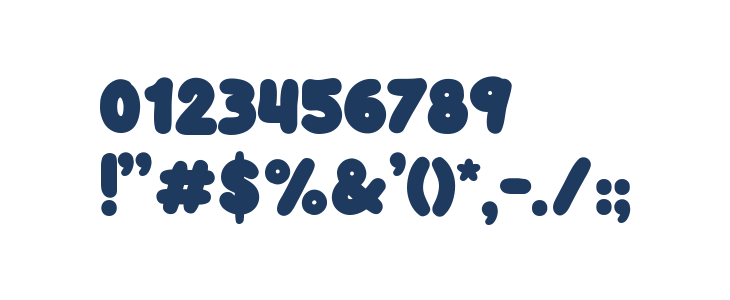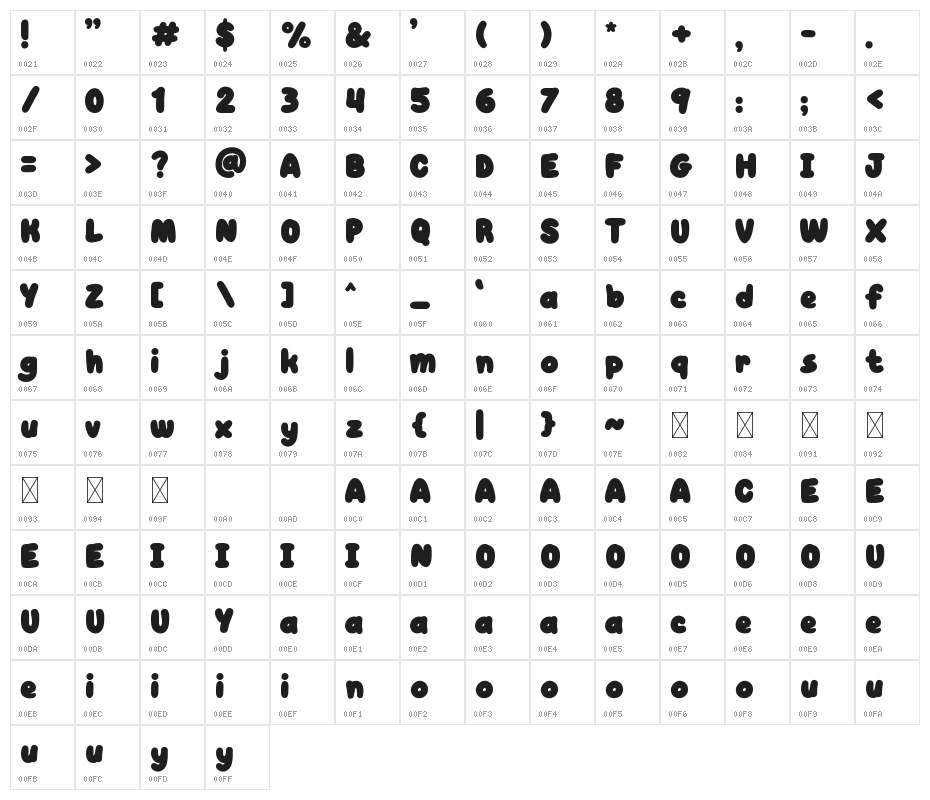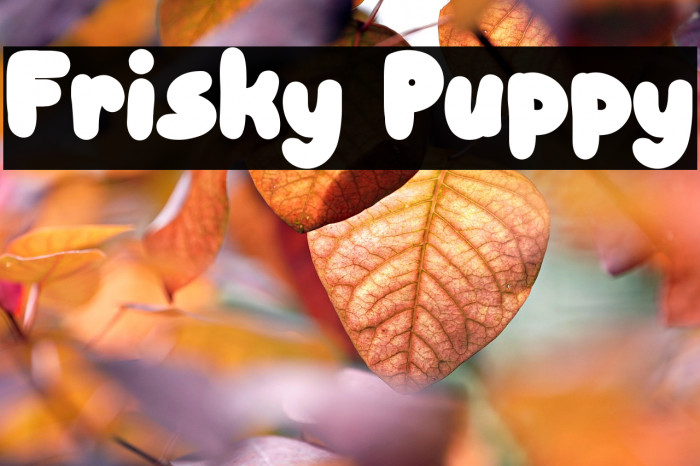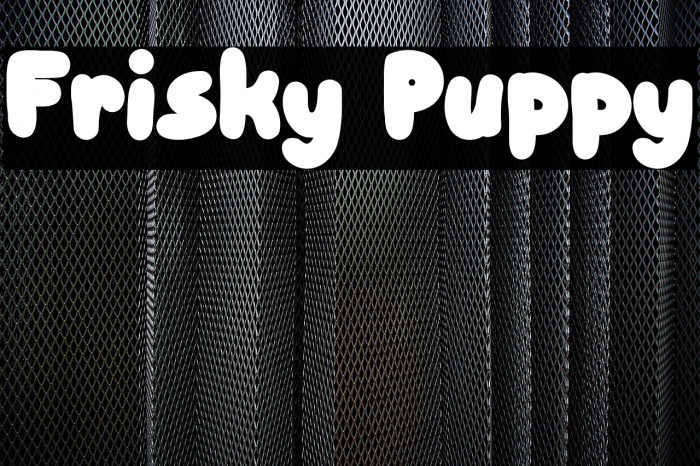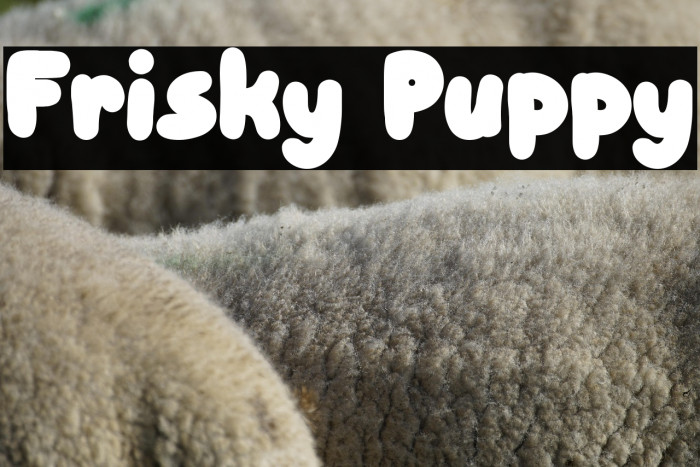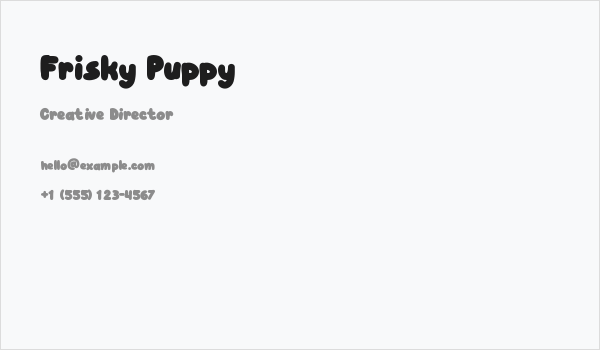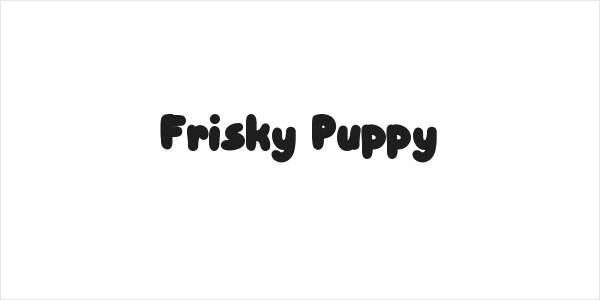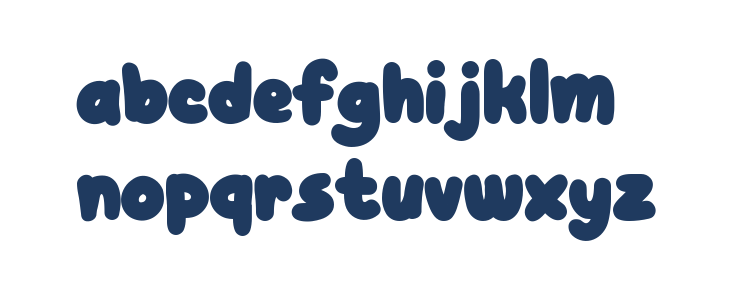
Frisky Puppy Font
Frisky Puppy Description
This playful and bold font features rounded, bubbly characters that convey a sense of fun and whimsy. Each letter is crafted with a thick, uniform stroke that gives the font a cohesive and friendly appearance. The characters are slightly condensed, enhancing their compact and energetic feel. The font includes a full set of uppercase and lowercase letters, numbers, and a variety of special characters, making it versatile for different design needs. Its unique style is reminiscent of playful, cartoon-like aesthetics, perfect for projects that aim to capture a youthful and lively spirit.
| Overall Style | Playful, Cartoon-like |
| Proposed Projects | Children's book covers, playful branding, party invitations, toy packaging, and cartoon graphics. |